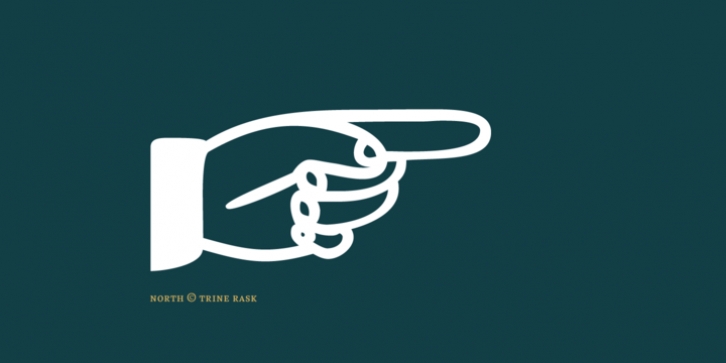
North was designed by Trine Rask and published by Trine Rask. North contains 3 styles and family package options.
North Family is a small type family designed for books and pages of text in smaller or bigger sizes. It has been designed with special care for the Scandinavian languages, their letter combinations and special characters, but contains accented characters for all european languages.
North is a soft and warm typeface, legible and friendly, very suitable for setting text that you just want to be read as easy as possible.
Also very usable for children books with its simple forms.
· North
· North Italic
· North Bold